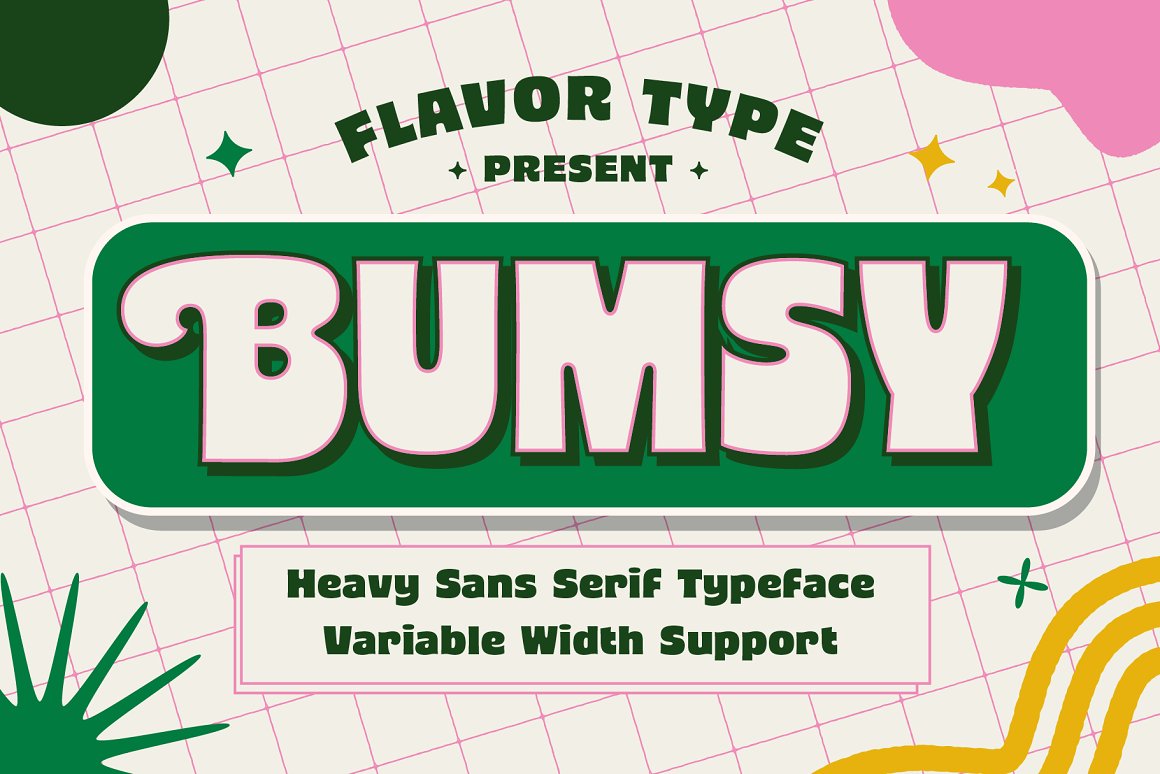
Heavy Sans Serif Typeface Bumsy
Bumsy, A new carefully crafted Heavy Sans Serif Typeface. It’s Versatile, Fun, Cute and Beauty feel that you get in Bumsy.
Bumsy Created with the happy and fun feeling, so the looks it represent how we feel. Bumsy comes with 3 width : Condensed, Narrow and Regular. if you want more width, you can also use the Variable Width. Bumsy also comes with beautiful swashes, Every glyphs for alternates are curated for the best and possible without eliminate characteristic of this fonts.